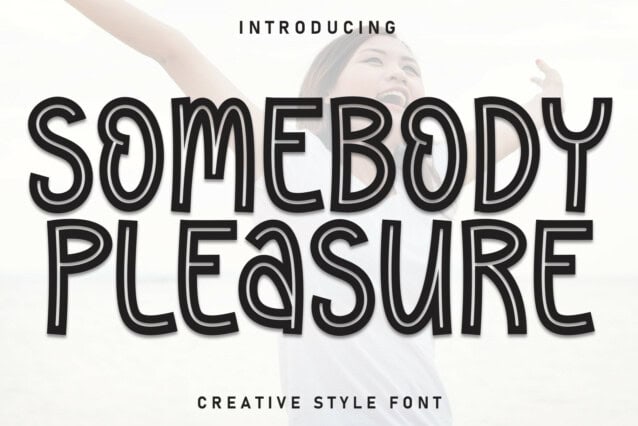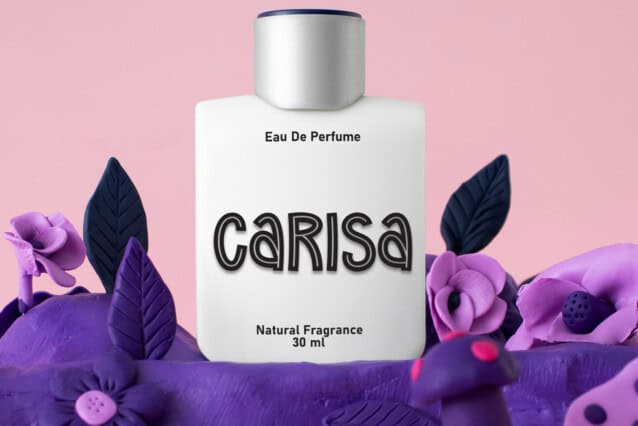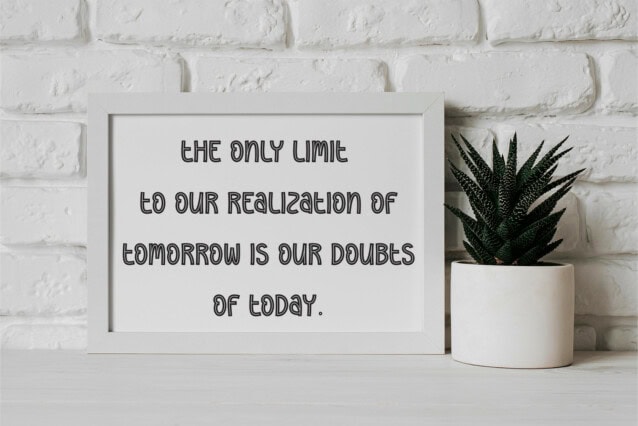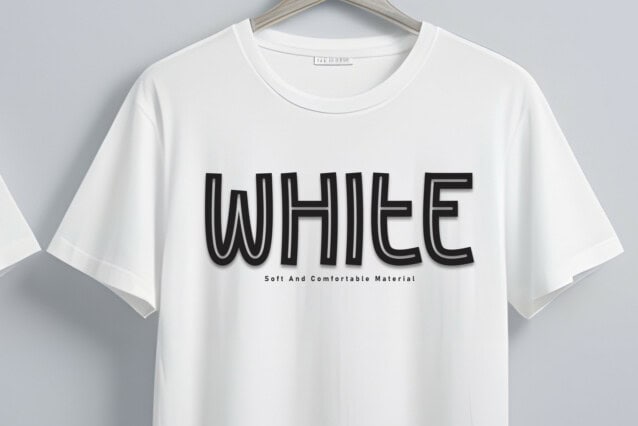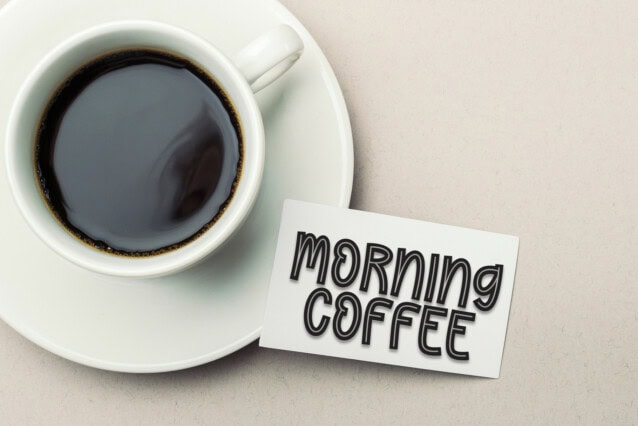
Somebody Pleasure Display Font is a sweet and friendly handwritten display font. Cute and fun, this font is ideal for writing wedding invitations, cards, or any other design that might need a playful touch!